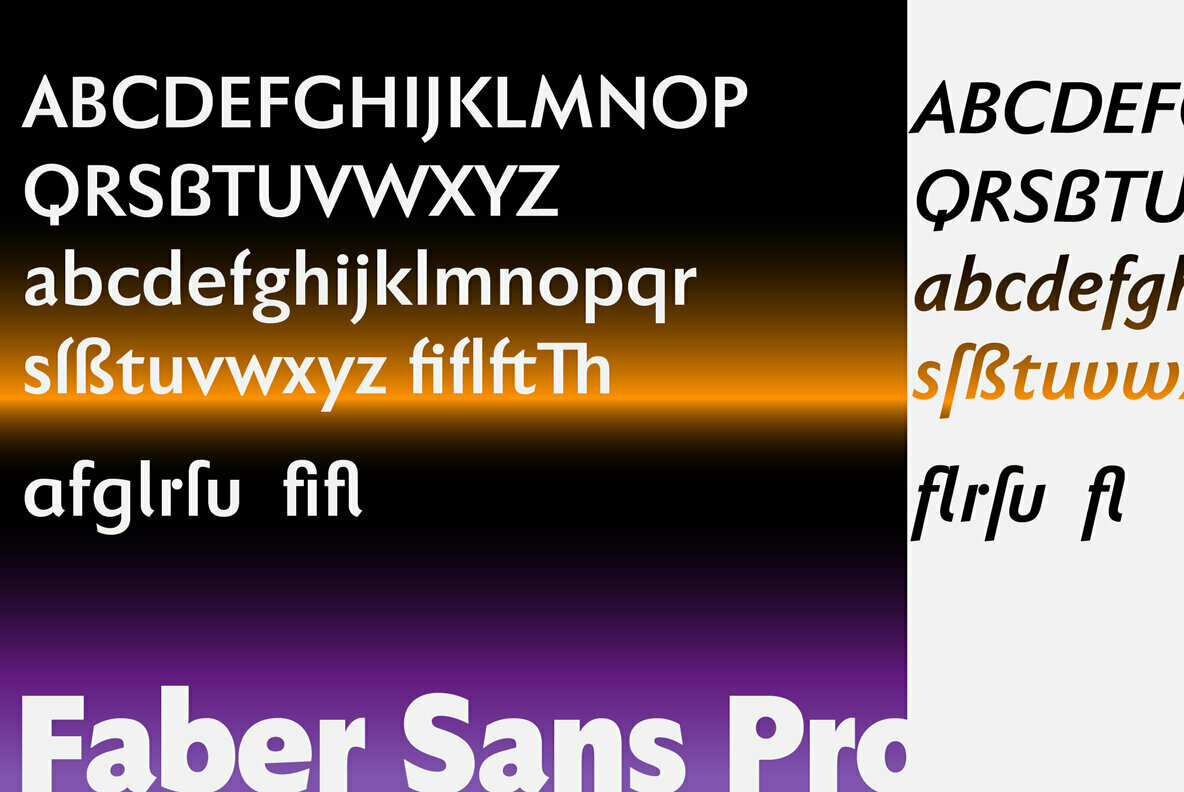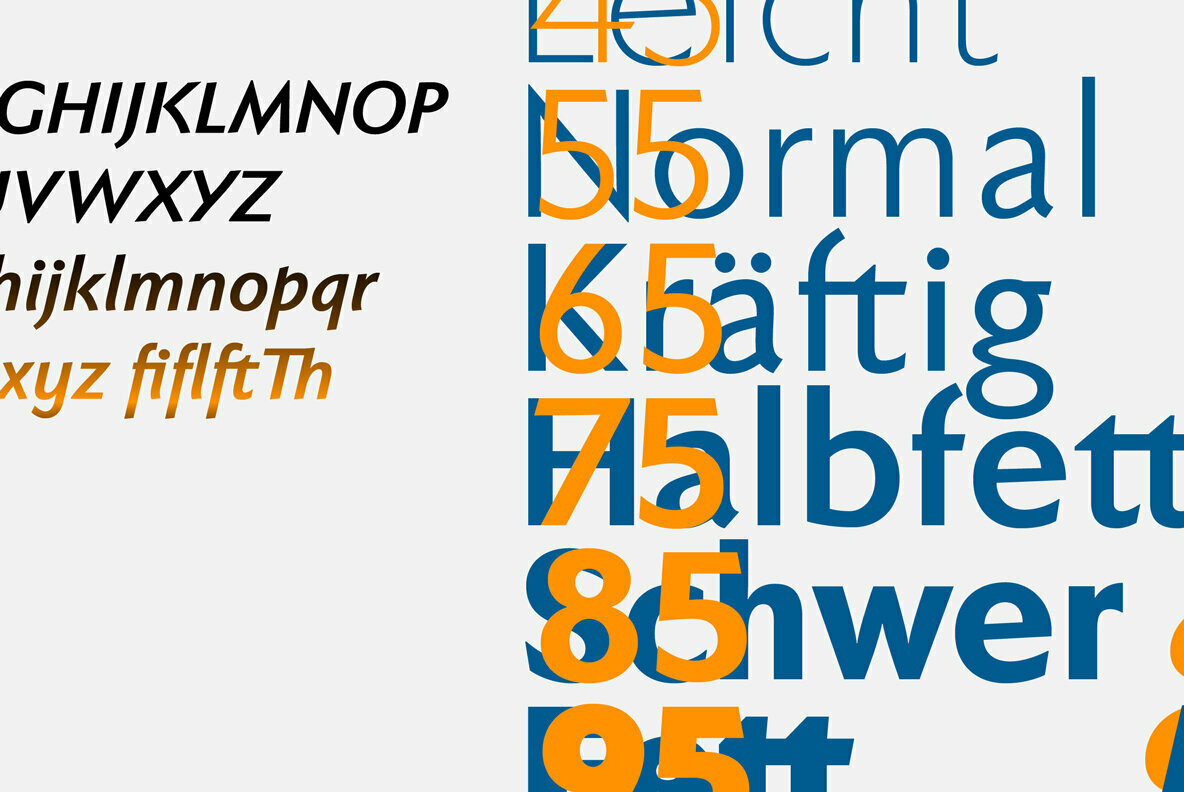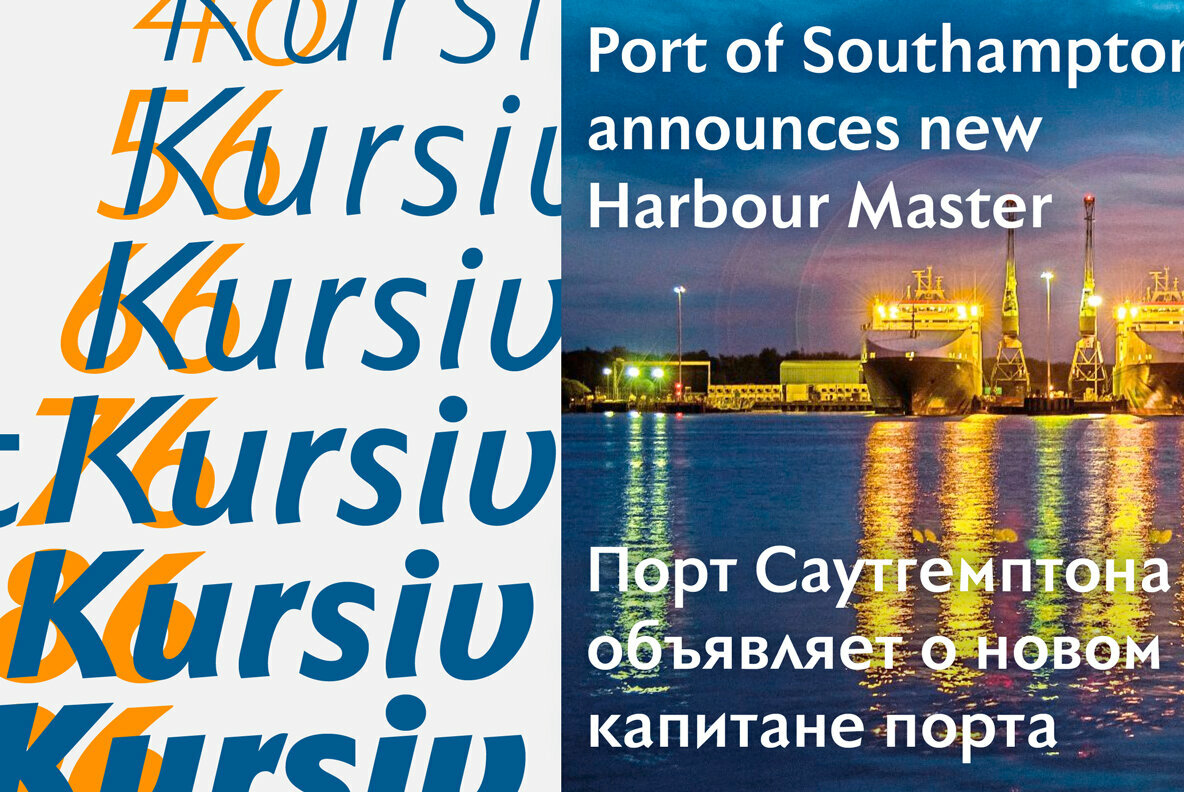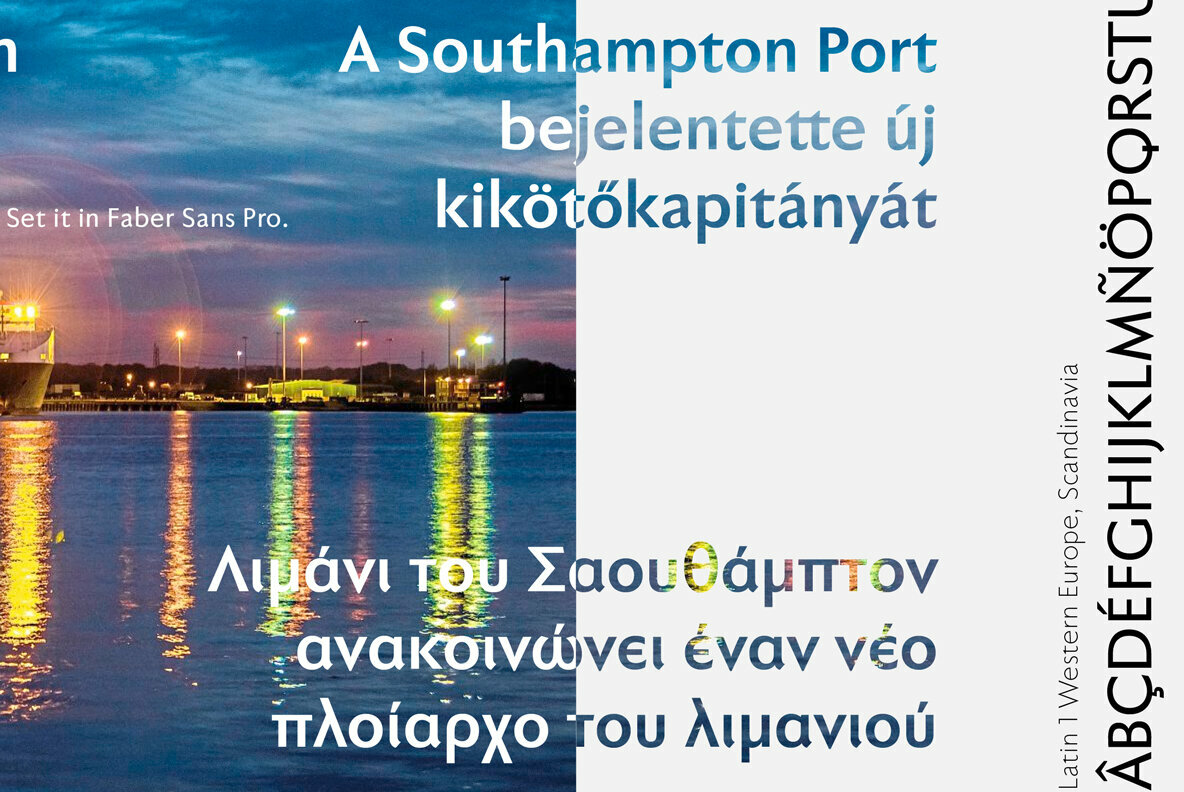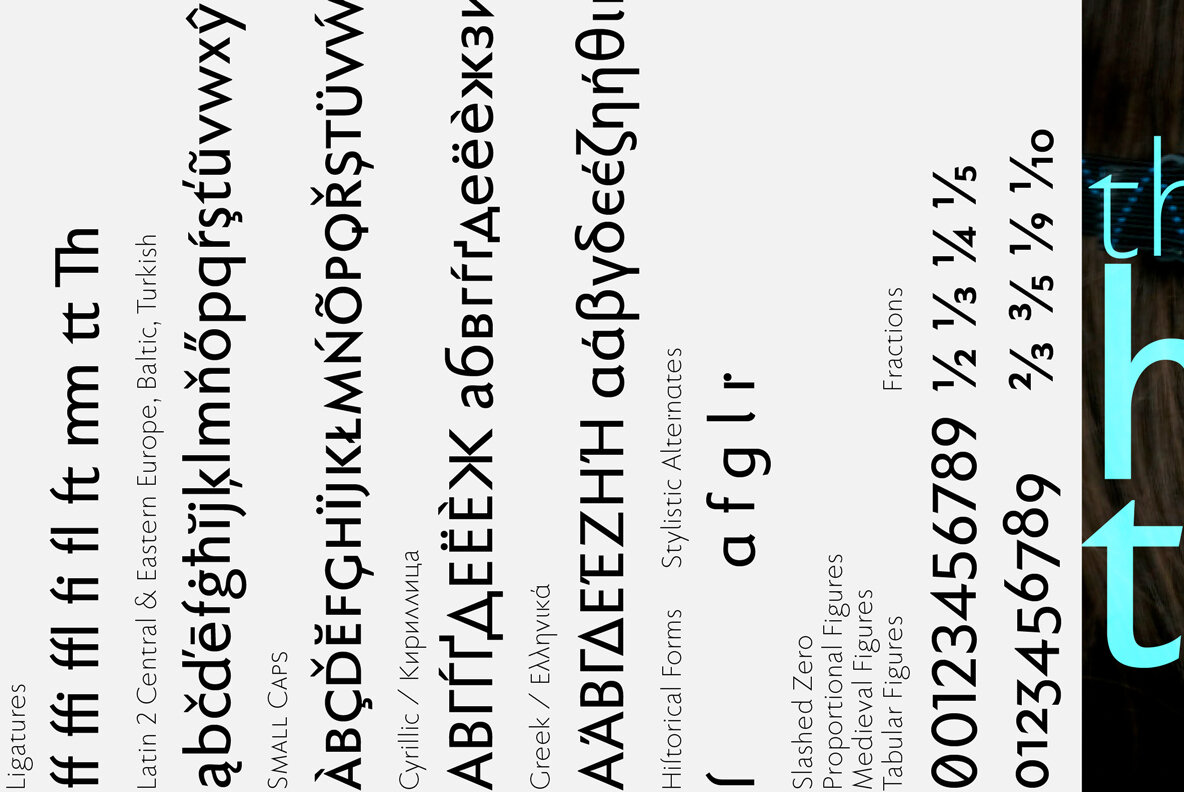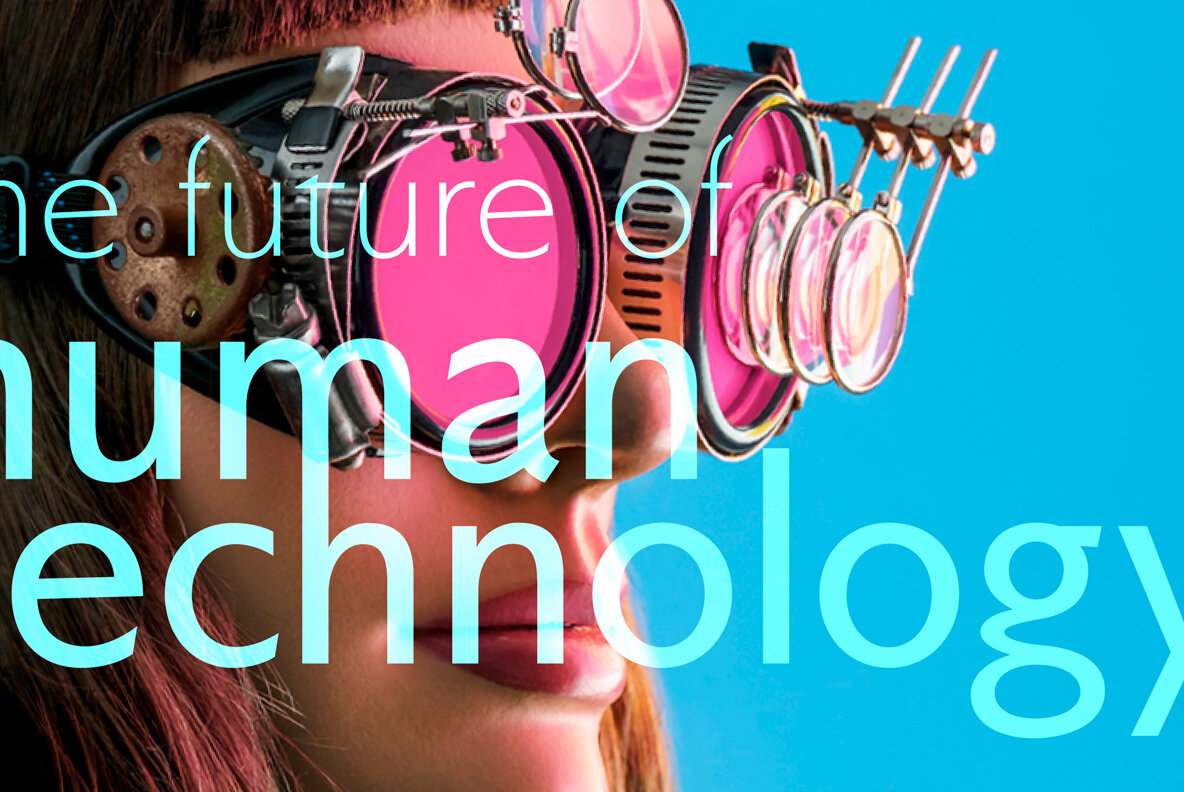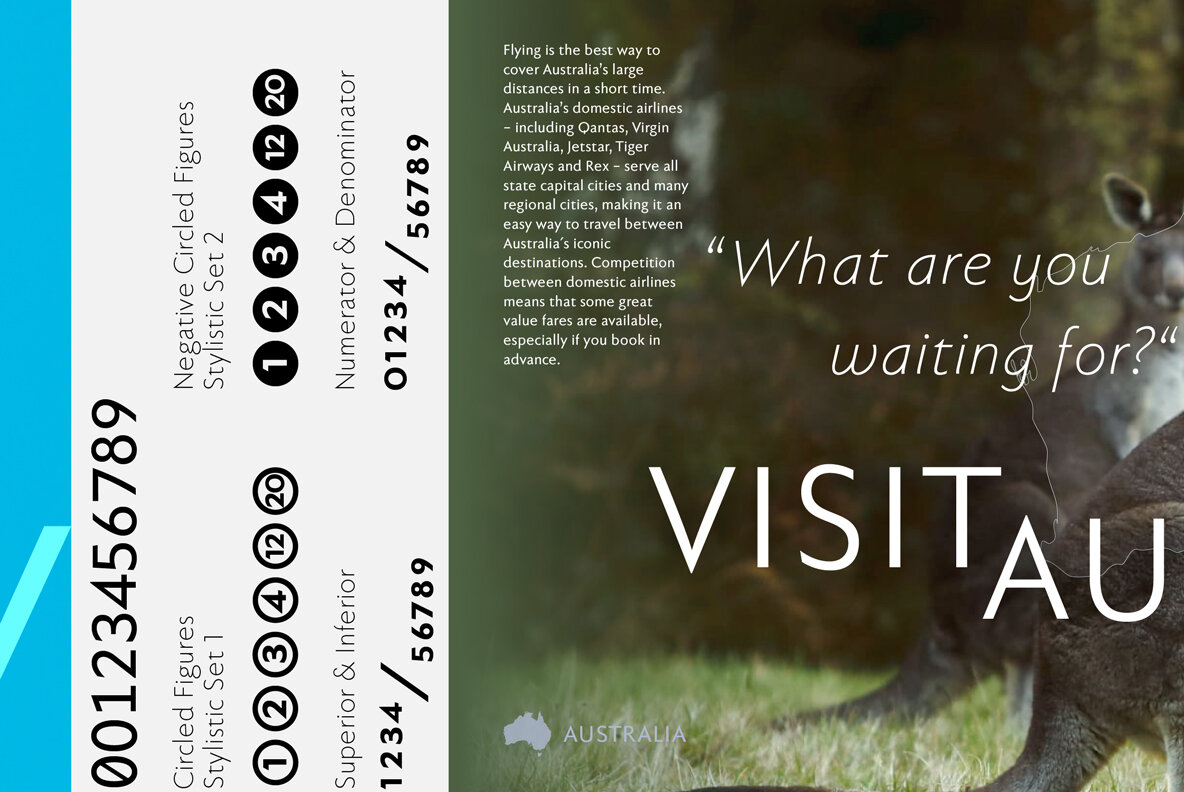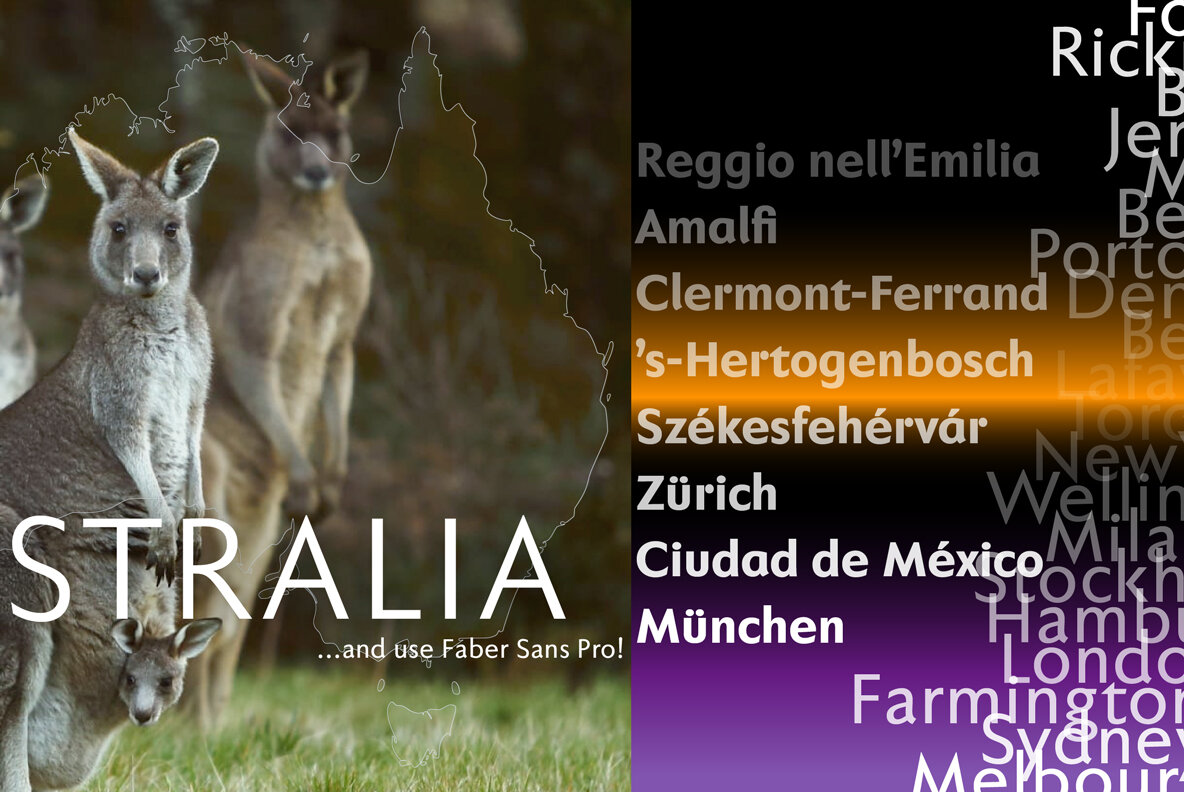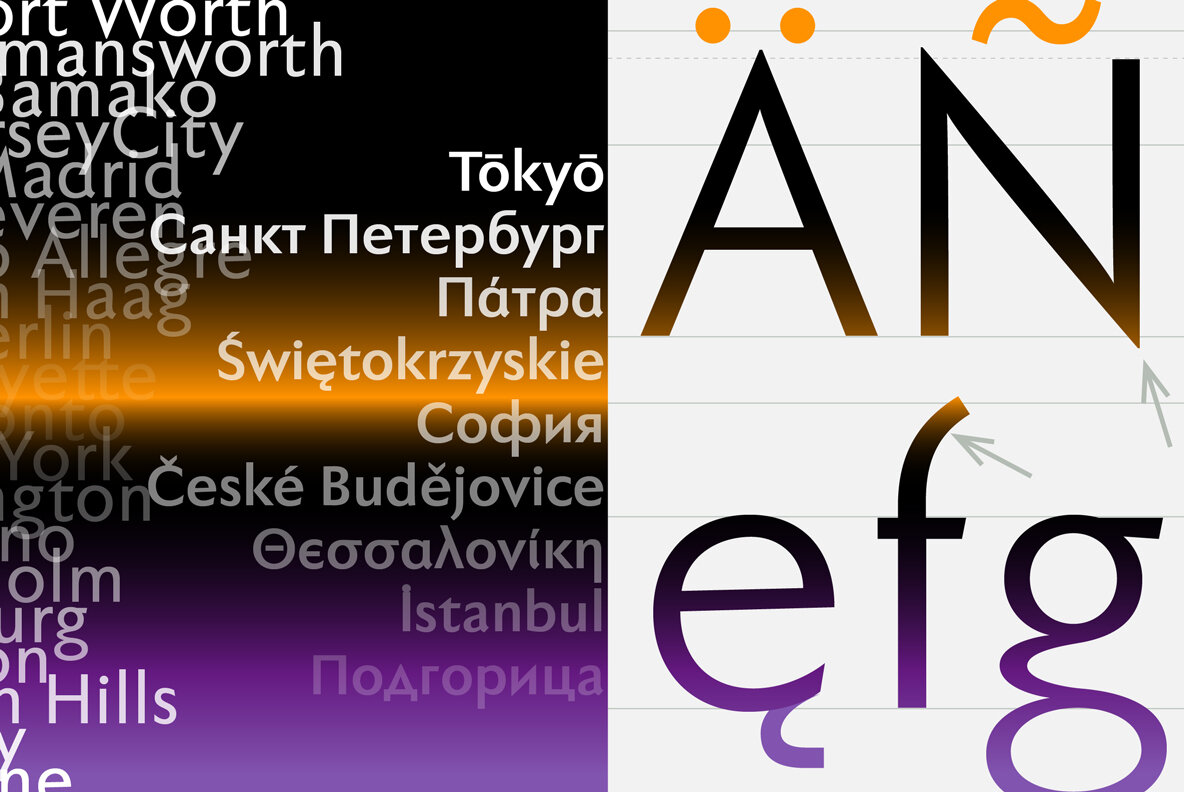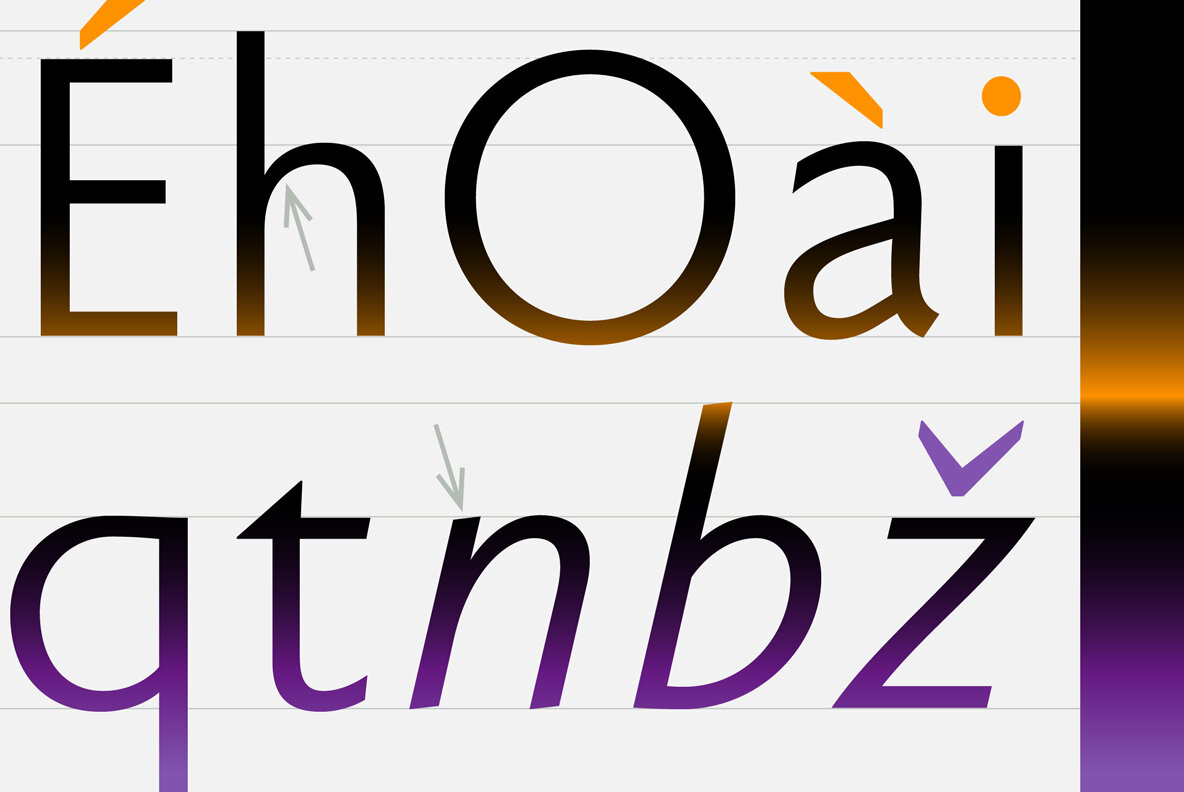
Faber Sans Pro Font
Two fonts in one: stylistic alternates give Faber Sans a completely different ”look.“
Faber Sans is a sans serif in the classic-modern style of type creations of the early 20th century — godfathered by Futura from Paul Renner and Gill Sans from Eric Gill. And so a font with pleasant rhythmic proportions was created and is extremely comfortable to read, especially in large amounts of text; but, it is also reader-friendly under adverse typographic conditions on the monitor.
A terse character is the f, having a shortened ascender and managing without the usual sweeping bow in reading order.
The determining element in the appearance of Faber Sans is seen in the wide round forms of b c d e o p q and C D G O Q , and this formal characteristic is even more emphasized with the use of the round a and g of the stylistic alternates. Contrast to the soft round forms is provided by the points of all characters derived from the triangle: v w z, and especially the capitals A M N V W Z .
A ”second“ typeface with its own personal character resulted as stylistic alternates were designed for the letters a f g l t u in accordance with the uncial scripts of the late antiquity or rather the early Middle Ages. And the r is given a playful point in the stylistic alternates.
Unlike classic sans serifs, Faber Sans includes a ”true“ italic. The italic characters are not simply just slanted variations of the upright, but the characters originated out of handwriting styles; they are rounder and the stroke flow is more fluent than on the upright letters. Some italic letters truly have their very own design which clearly comes from handwriting, particularly noticeable on a and g.
Several OpenType-Features are included in Faber Sans, which can be turned on and off as required:
Stylistic Alternates: replaces the letters a, f, g, l, r by the alternate glyph, also in ligatures.
Ligatures: replaces the letter combinations fi, fl, ff, ffi, ffl, ft, tt, Th with the corresponding ligature.
Discretionary Ligatures: replaces ch, ck, mm with the appropriate ligature and SS with capital-ß.
Tabular Figures: replaces proportional standard figures with tabular non-proportional figures.
Medieval Figures: replaces standard figures with medieval figures, which have ascenders and descenders like the lowercase letters.